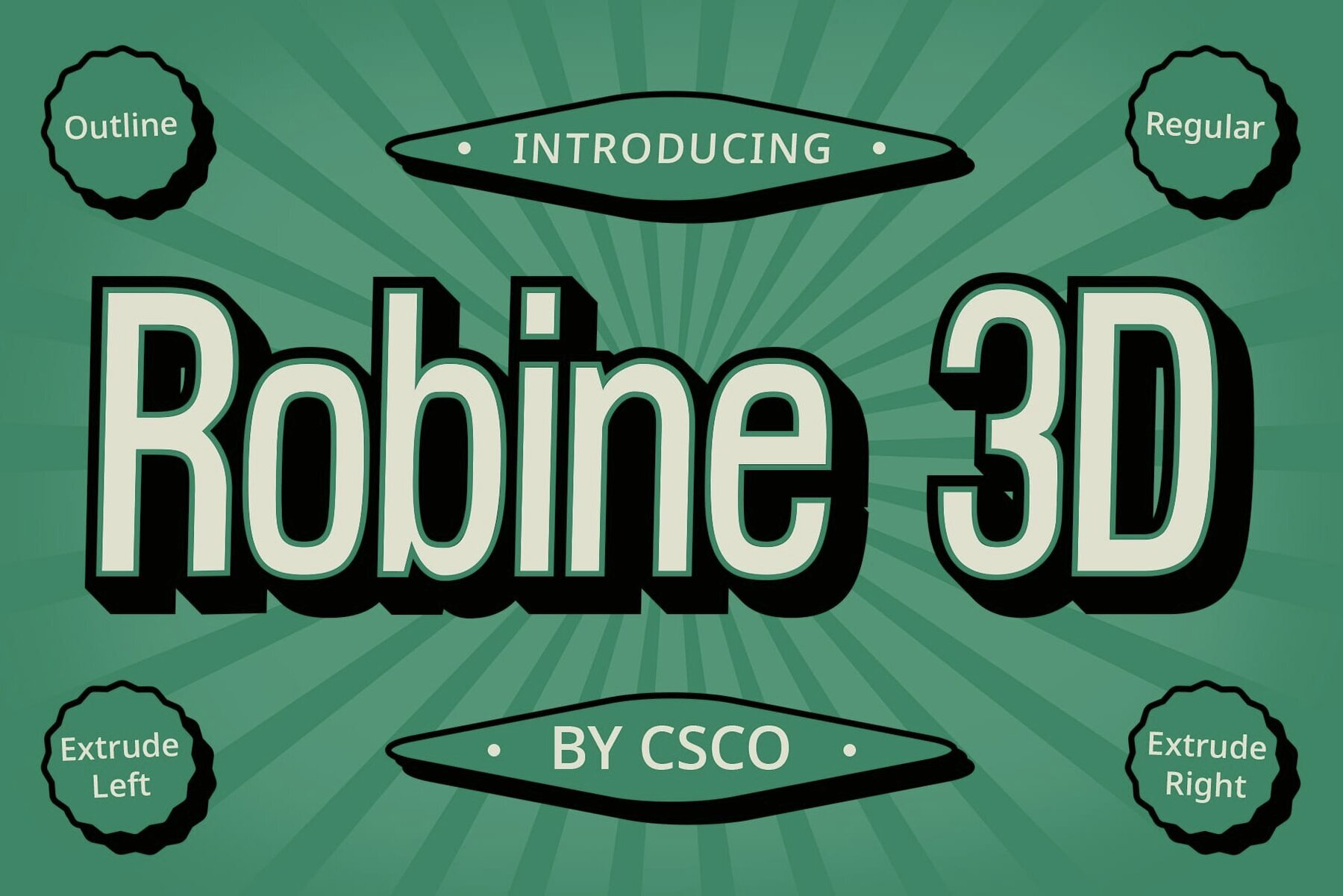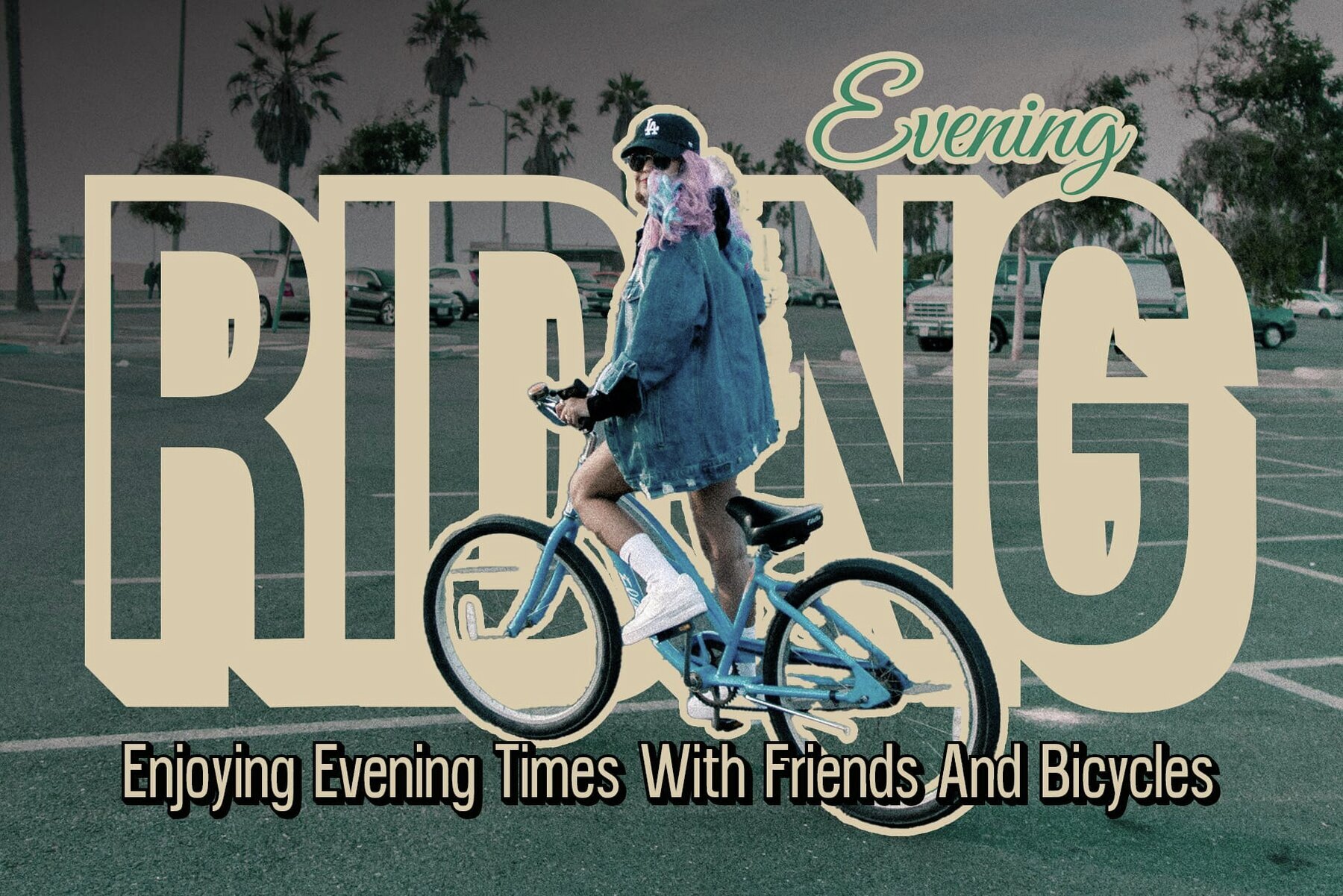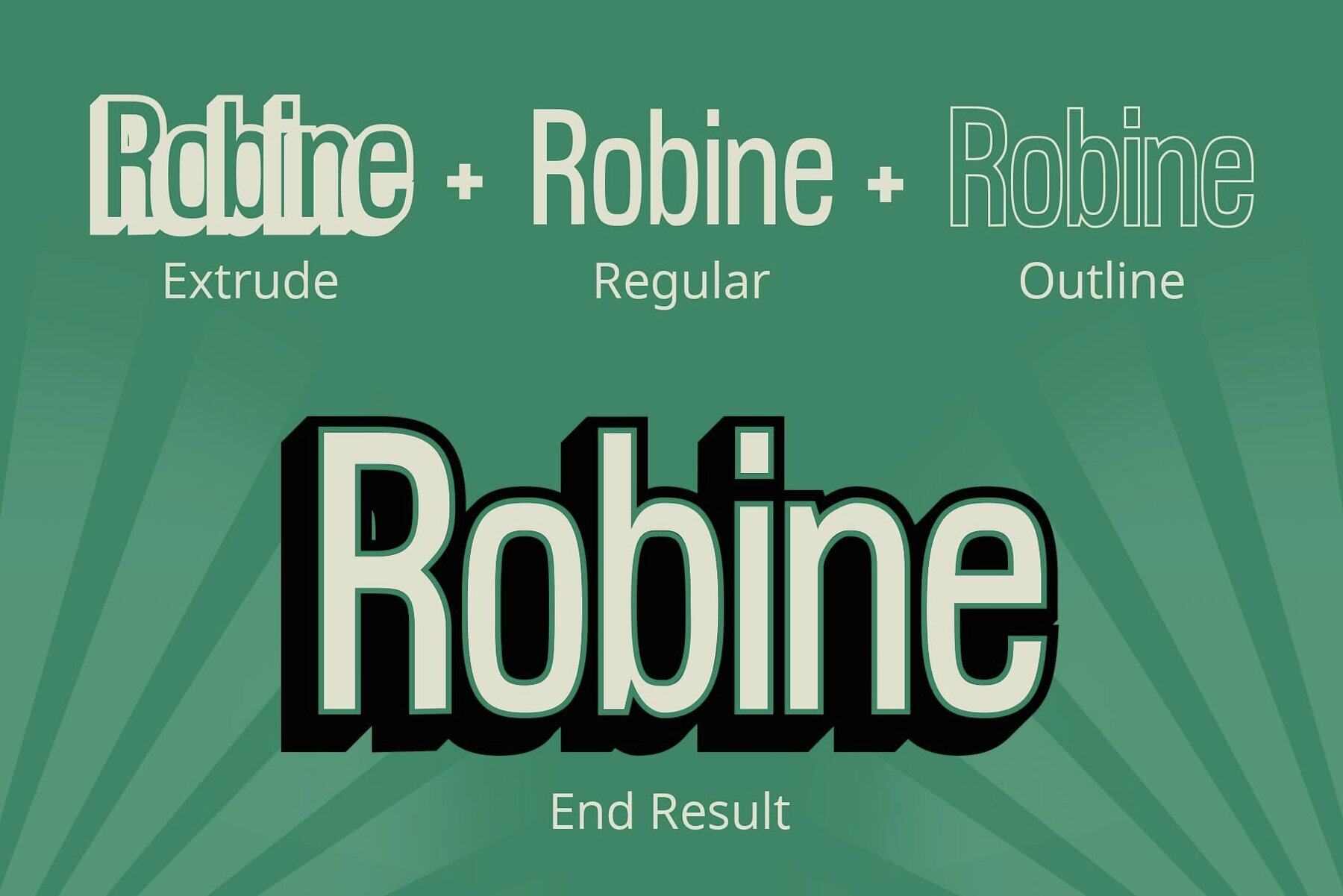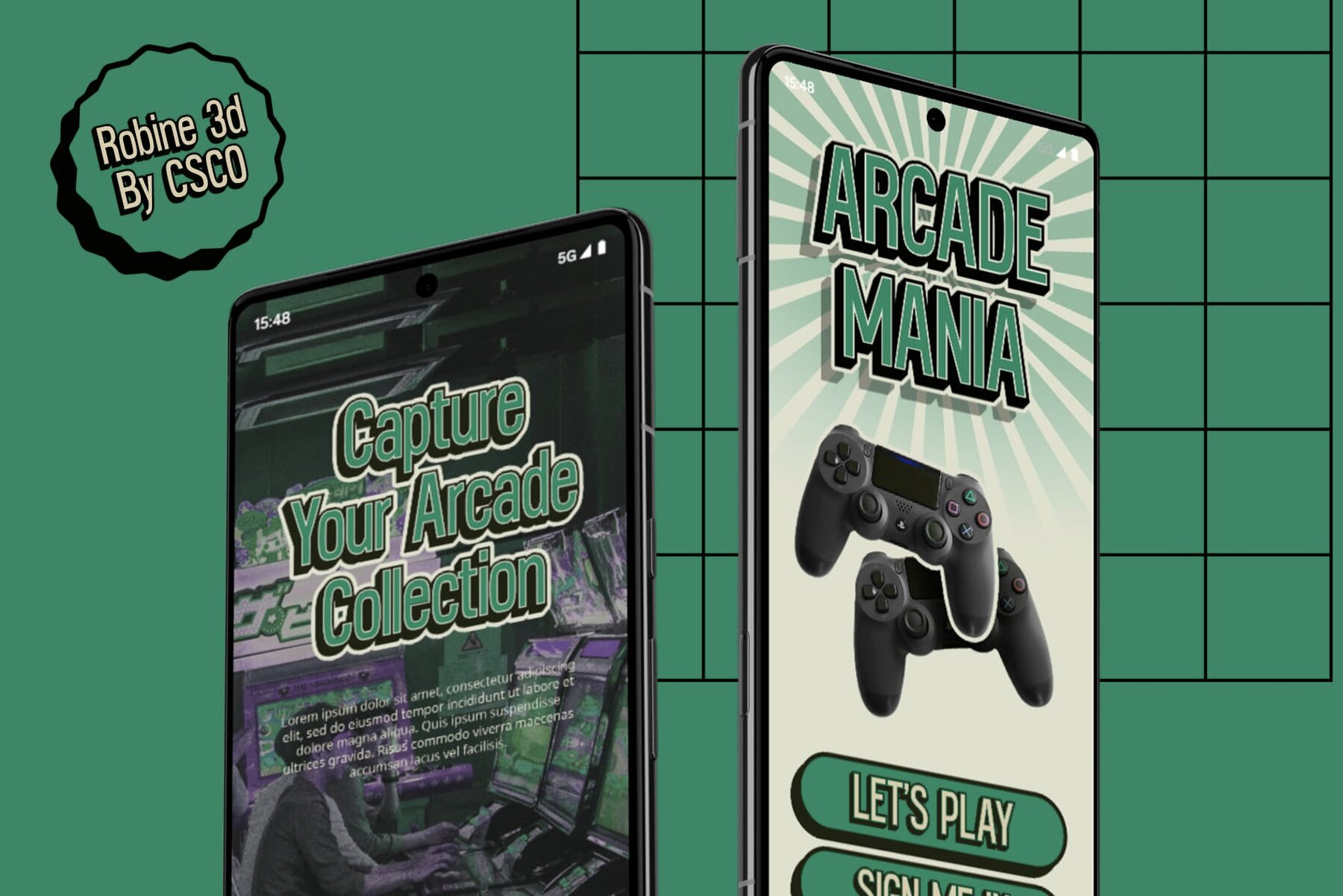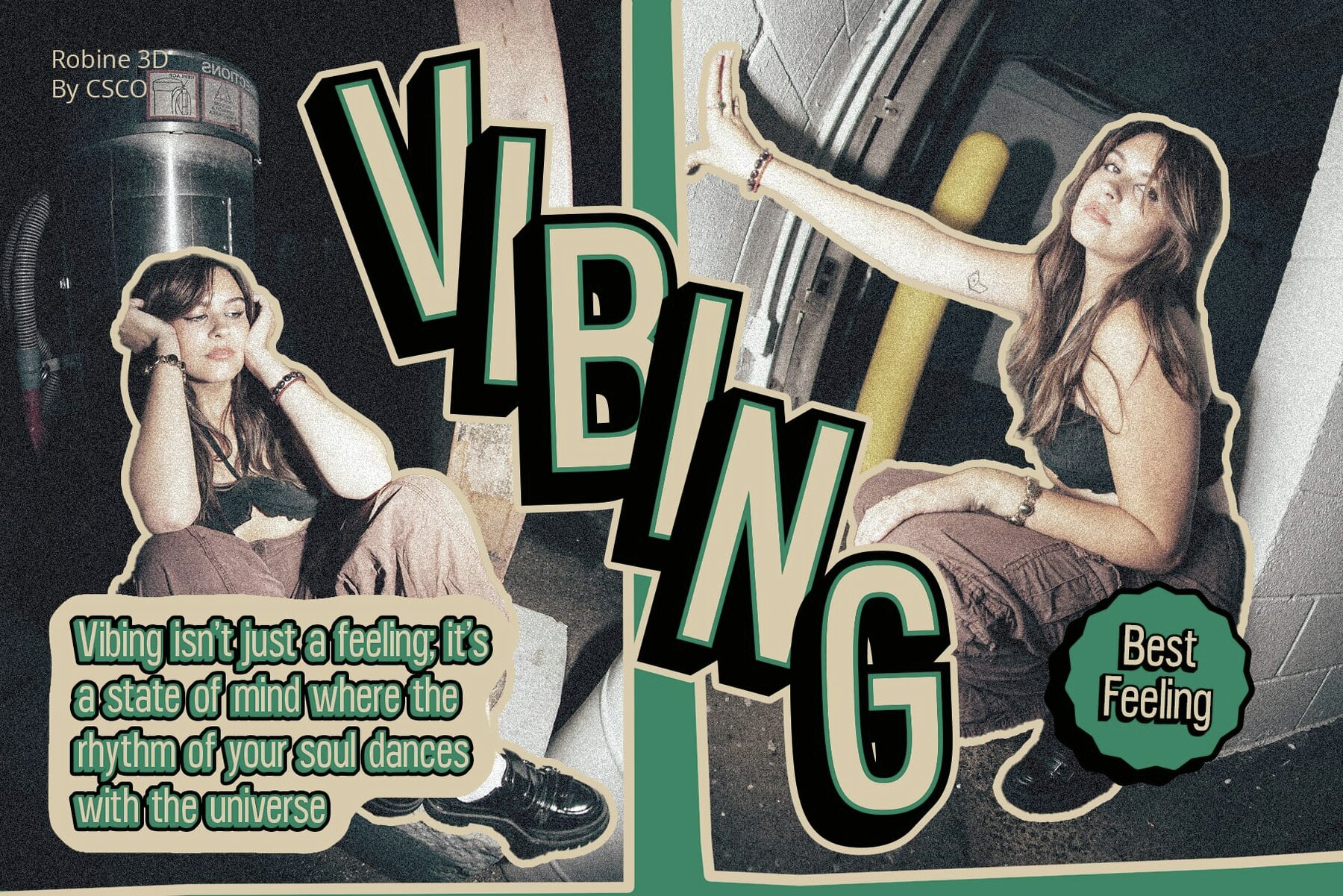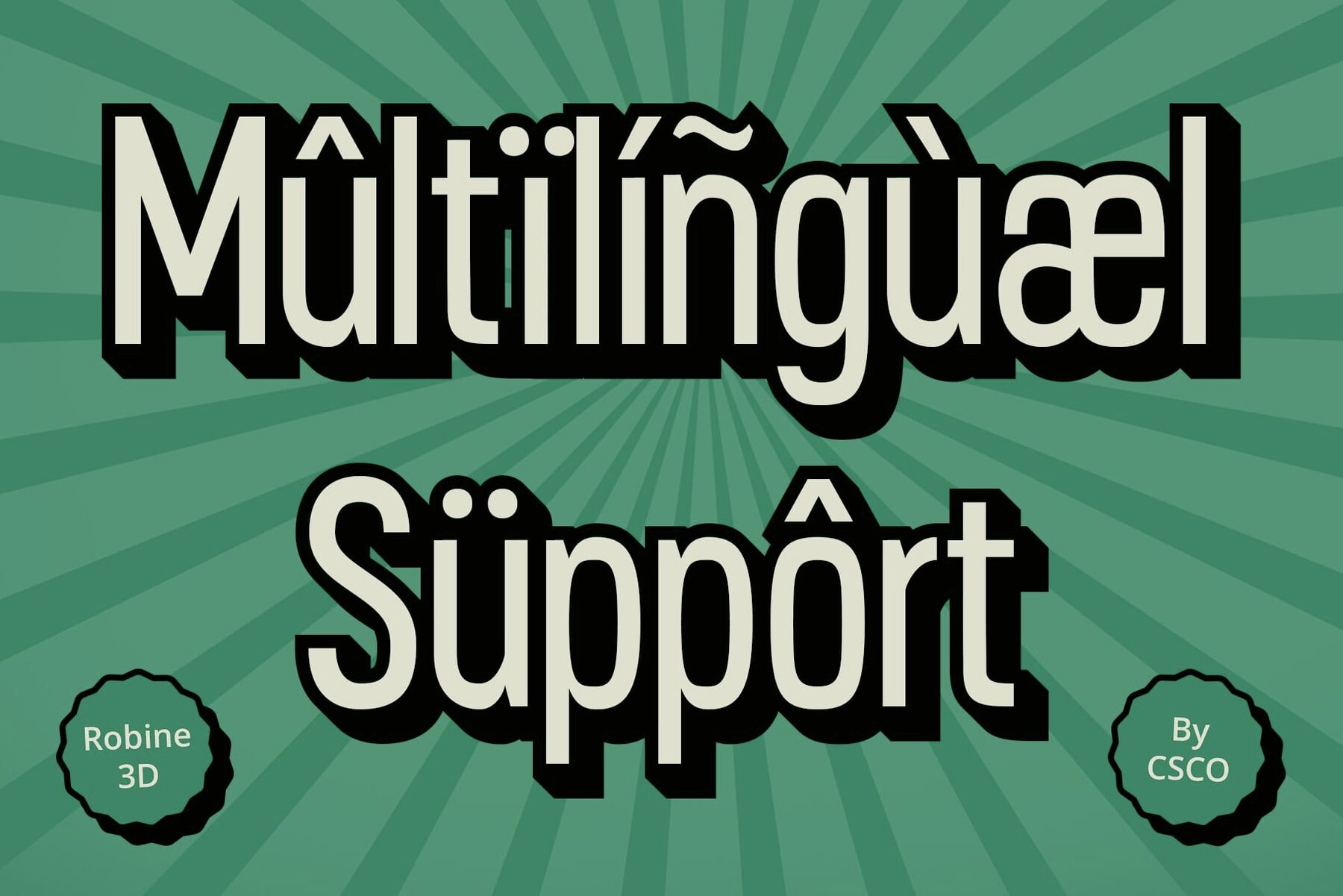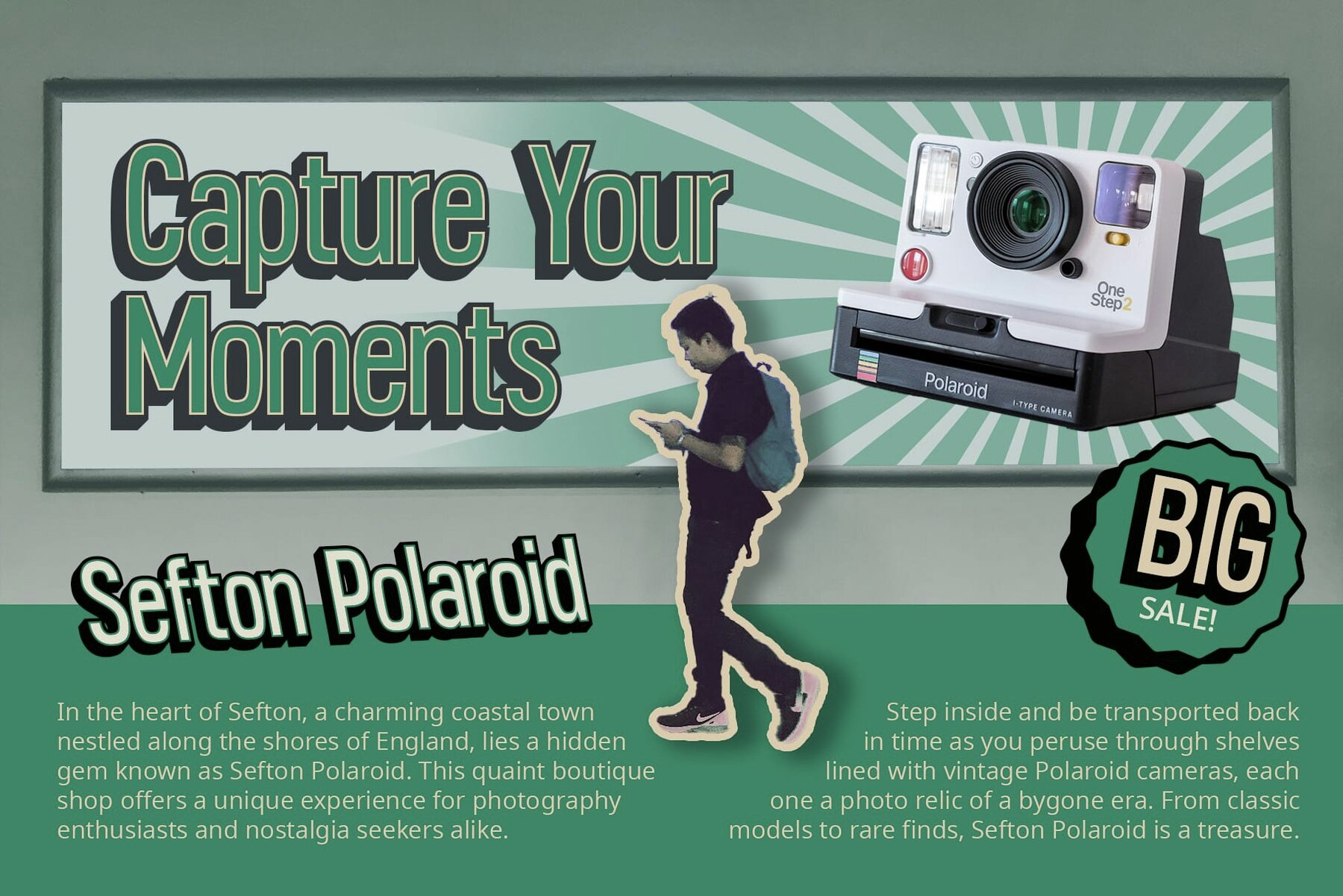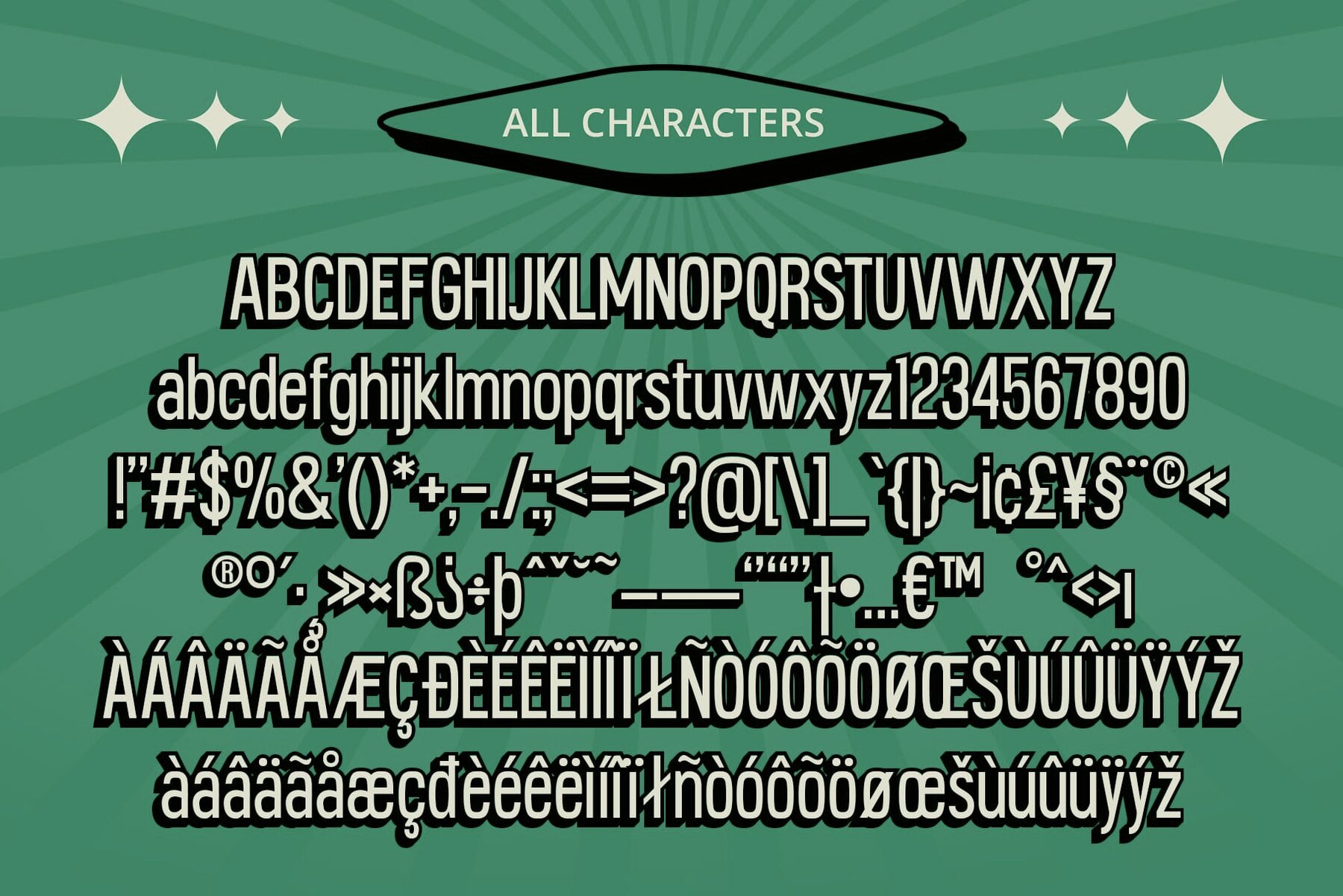
Robine 3D Font
Robine 3D by Craft Supply Co. is crafted for those seeking to enhance their display designs with a modern and sleek aesthetic. This sans serif font is notable for its condensed form and low contrast, achieving optimal legibility and a striking presence in various display applications. Using Robine 3D is simple, with no need for specialized software. If you have any questions or need assistance, feel free to reach out. We value your support in elevating your creative projects! Best regards, ...Robine 3D: A Dynamic Display Typeface